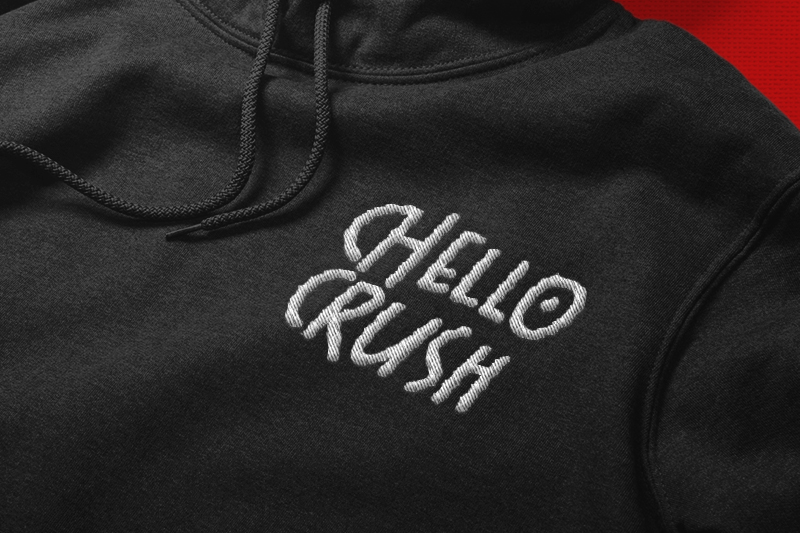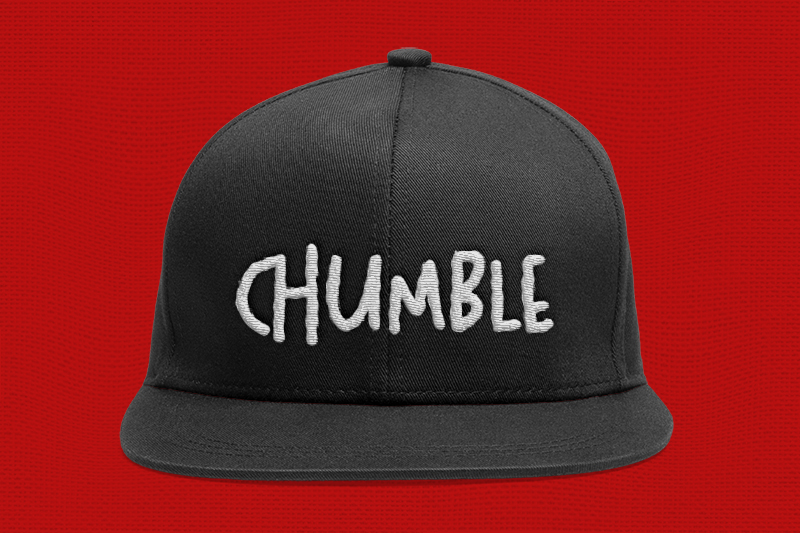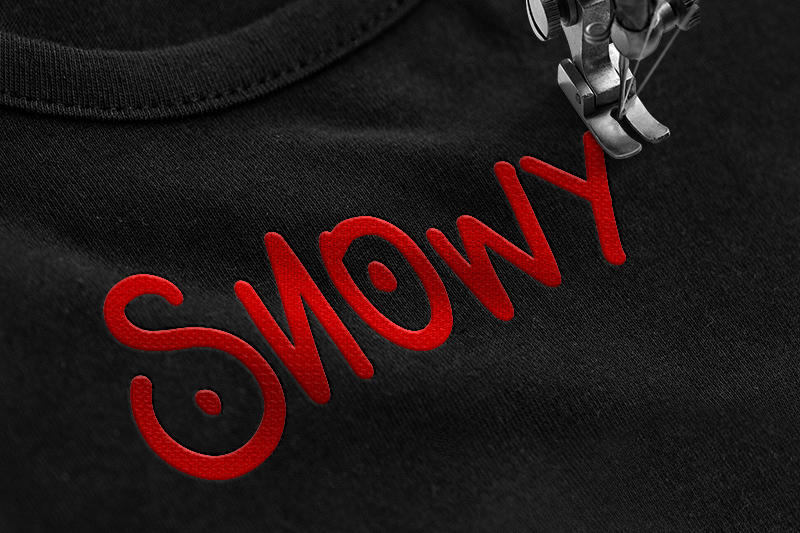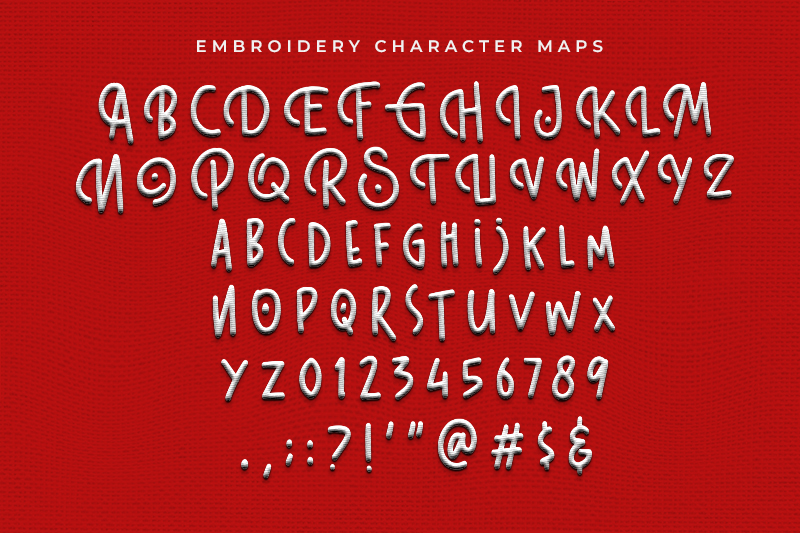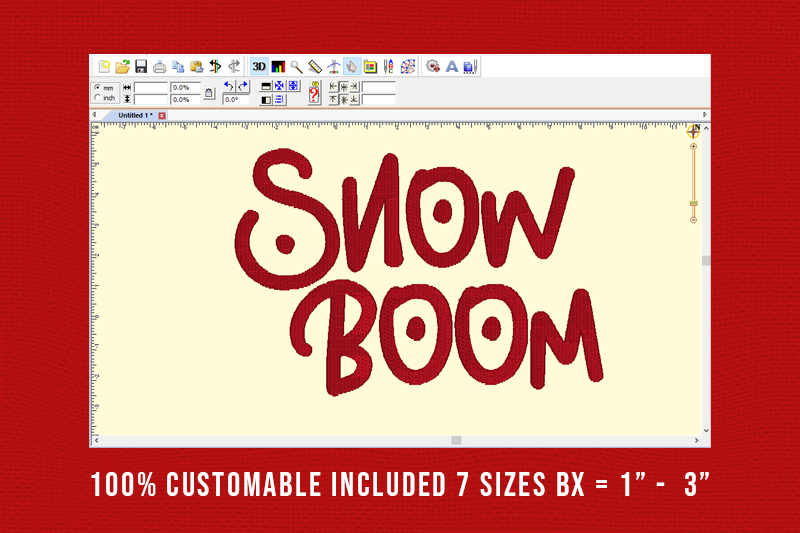
Snow Boom Embroidery Font is a part of the Embroidery fonts. This font is one of the best collections of Christmas fonts that you can check out on the Kong Font website. This font has unique characteristics, is simple, and looks fun. Also, we can see how Snow Boom is legible font. It has a short form, as if it were written without much effort, is curved, and has extra dots in the empty letter spaces.
The characteristics description of Snow Boom above shows how this font looks so unique and cute. The unique characteristic is the difference between the Snow Boom embroidery font and other border fonts. This font can be a border with small or large font sizes. It will be clean and easy to read.
The excellent impression and characteristics of Snow Boom Embroidery font can make it one of the best Christmas fonts that can be used for clothing item designs such as writing on hoodies, t-shirts, and hats. Snow Boom font can be used for a logo that has a Christmas or cartoon theme.